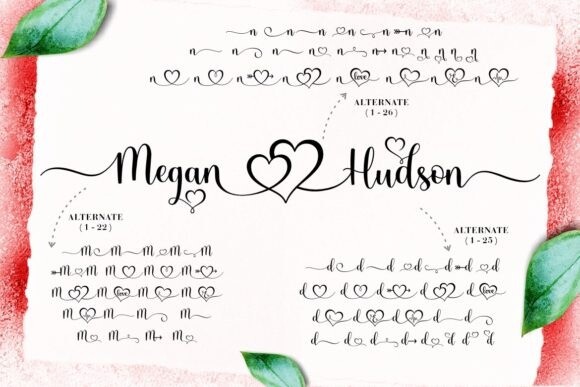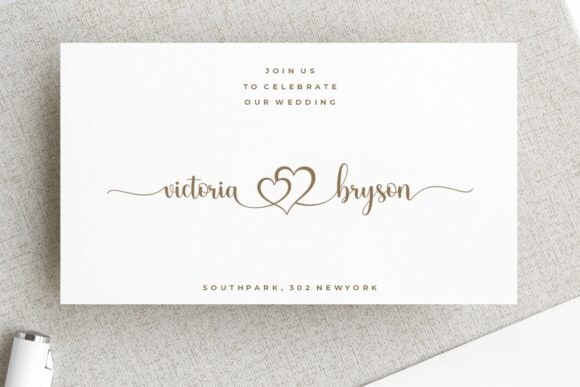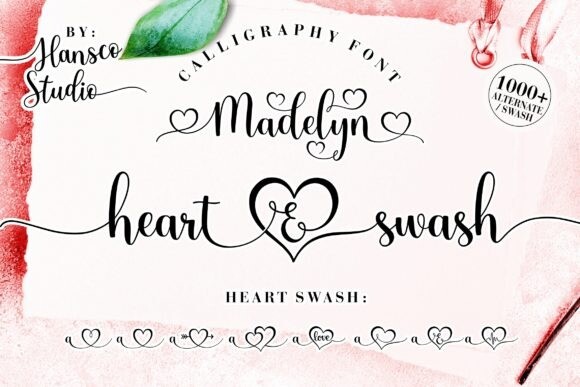
Madelyn Heart Font
Madelyn Heart Font is a clean and modern script font carefully created with a touch of elegance. This font is PUA encoded which means you can access all of the glyphs and swashes with ease!